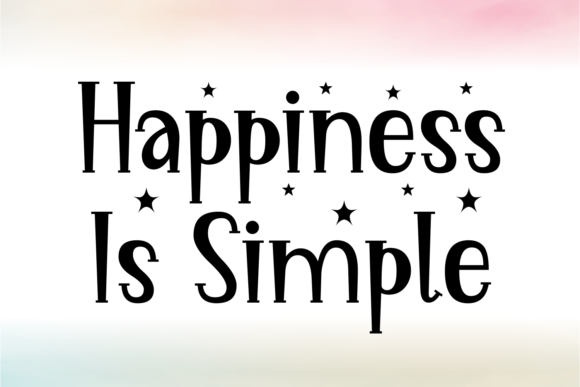
Embrace the Elegance: Happiness is Simple - A Serif Font for Timeless Creations
In a world yearning for simplicity, behold Happiness is Simple - a mesmerizing serif font crafted by Creative Fabrica Fonts. This masterpiece transcends the boundaries of ordinary typefaces, promising to elevate your creative visions to extraordinary heights.
Step into a realm of timeless beauty, where every letter dances with grace and harmony. Happiness is Simple is a serif font that captures the essence of classic design, meticulously crafted to exude elegance and sophistication. Its delicate curves and refined lines pay homage to the enduring charm of traditional typography, while its modern sensibilities ensure a captivating presence in the digital age.
With Happiness is Simple as your creative companion, transform your designs into captivating masterpieces. Weave enchanting tales within the pages of storybooks, where each word carries the weight of history and imagination. Adorn book covers with titles that leap off the page, inviting readers into worlds unknown. Create posters that burst with personality, delivering messages that resonate with audiences.
Harness the power of Happiness is Simple to forge unforgettable branding experiences. Design logos that exude professionalism and leave a lasting impression. Craft apparel designs that speak to the heart, with words that dance across fabrics like melodies. Unleash your creativity and explore endless possibilities, knowing that Happiness is Simple will elevate your artistic expressions to new heights.
Beyond its aesthetic appeal, Happiness is Simple is a font of unparalleled versatility. Its innate charm seamlessly adapts to a symphony of design styles, making it the perfect choice for modern and vintage projects alike. Watch as your creations effortlessly transcend time, resonating with audiences across generations.